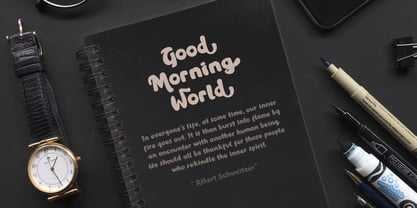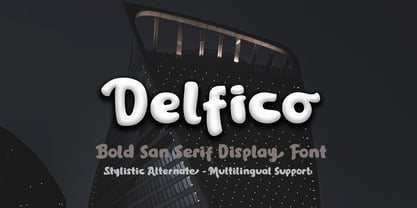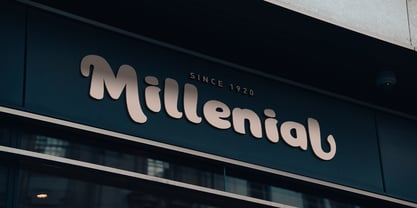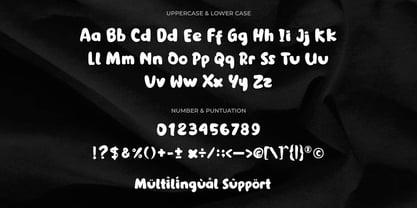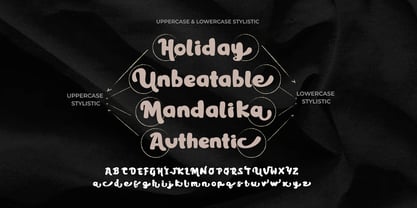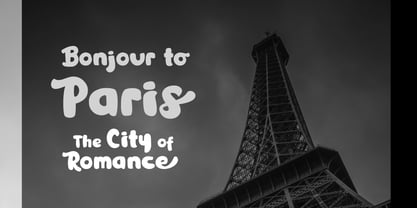
Delfico
by Letterluck
The Delfico Font Family was designed by Bayu Tri Ratman and published by Letterluck. Delfico contains 1 styles. More about this family
Delfico is playful, rounded font is ideal for branding, packaging, and creative marketing—especially for products aimed at younger audiences or lifestyle niches. This font was born from a desire to blend classic type specimen charm with a modern twist. It channels the spirit of vintage print shops while embracing the bold expressiveness of contemporary design.
Designers: Bayu Tri Ratman
Current Foundry: Letterluck